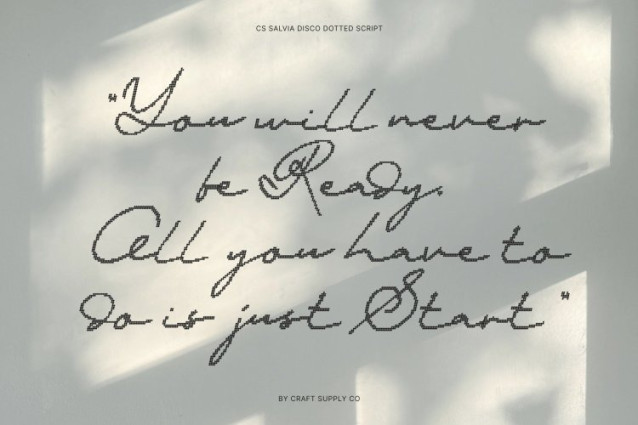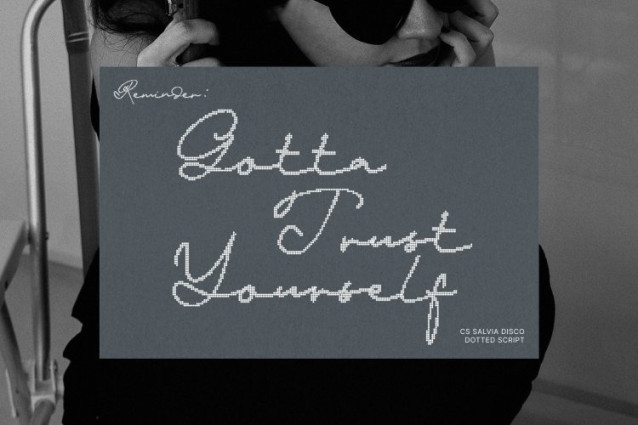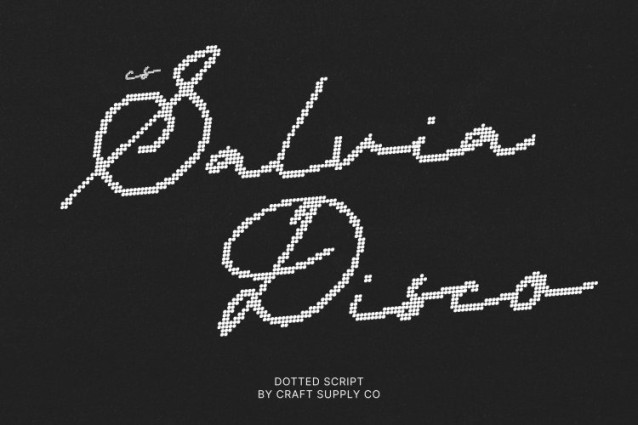
CS Salvia Disco Font
CS Salvia Disco Font – This font reimagines the graceful signature script as a vibrant dotted display font inspired by the glittering lights of the disco era. Each flowing stroke is composed of small circular dots, creating a shimmering texture that brings energy and celebration to the elegant handwritten style. This dotted construction preserves the authenticity of a personal signature while adding a festive and eye-catching glow.
Natural Flow with Rhythmic Dot Patterns
The smooth connections and organic rhythm of the original signature script remain beautifully intact. Formed through carefully arranged dots, each curve feels dynamic and lively, echoing the sparkle of dance floors and illuminated party lights. The result is a script that maintains its natural movement while gaining a playful and visually engaging dimension.
Classic Elegance with Cheerful Disco Energy
While maintaining its timeless sophistication, the dotted structure introduces a joyful personality that makes the font feel lively and expressive. The rounded dots soften the strokes and enhance the handwritten warmth, blending classic signature elegance with a bright disco-inspired charm.
Perfect for Branding, Invitations, and Stylish Designs
This is ideal for logos, branding, wedding invitations, packaging, fashion graphics, and social media visuals. Its sparkling script style adds personality and elegance to every composition, making designs feel both luxurious and celebratory.